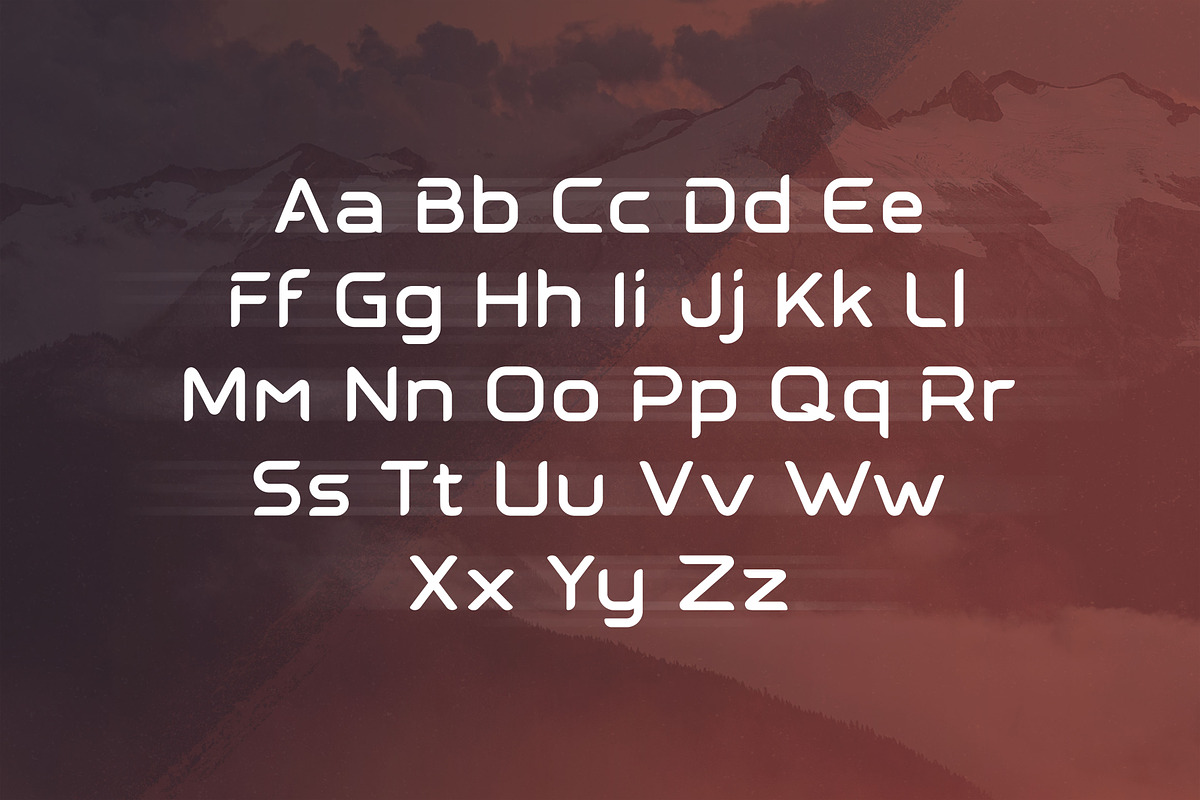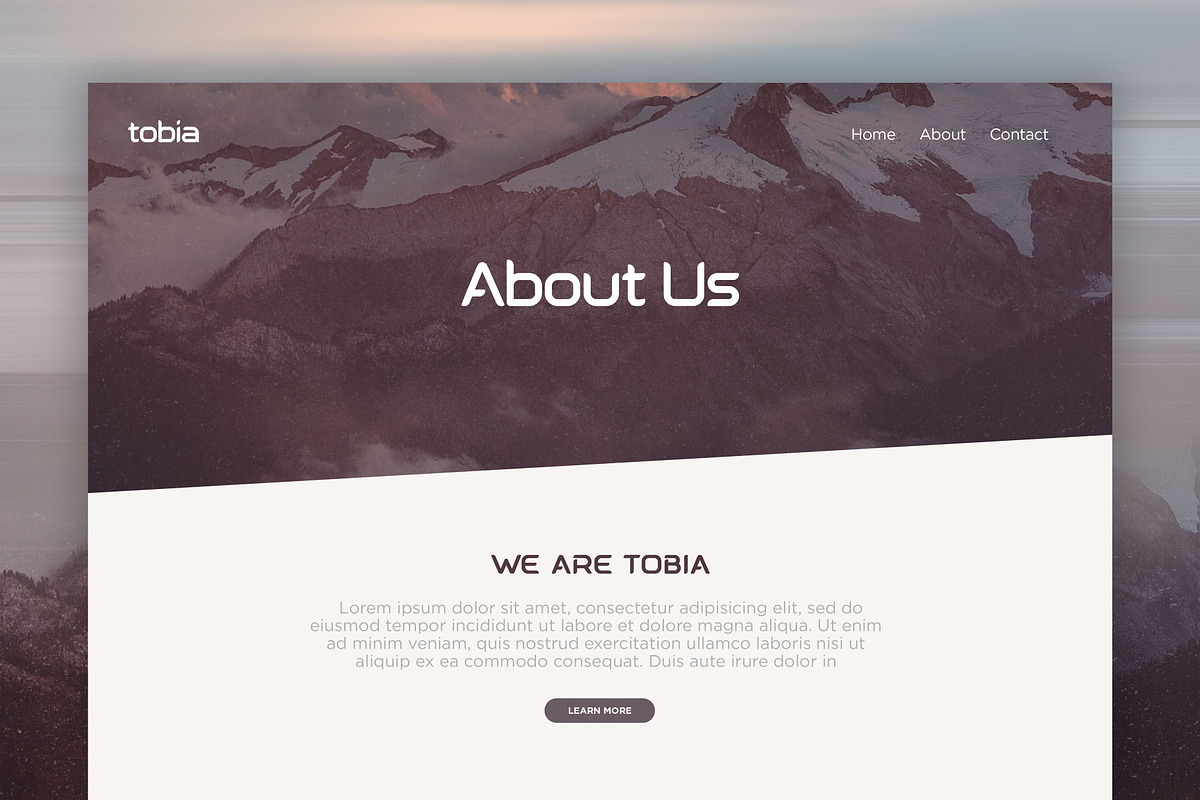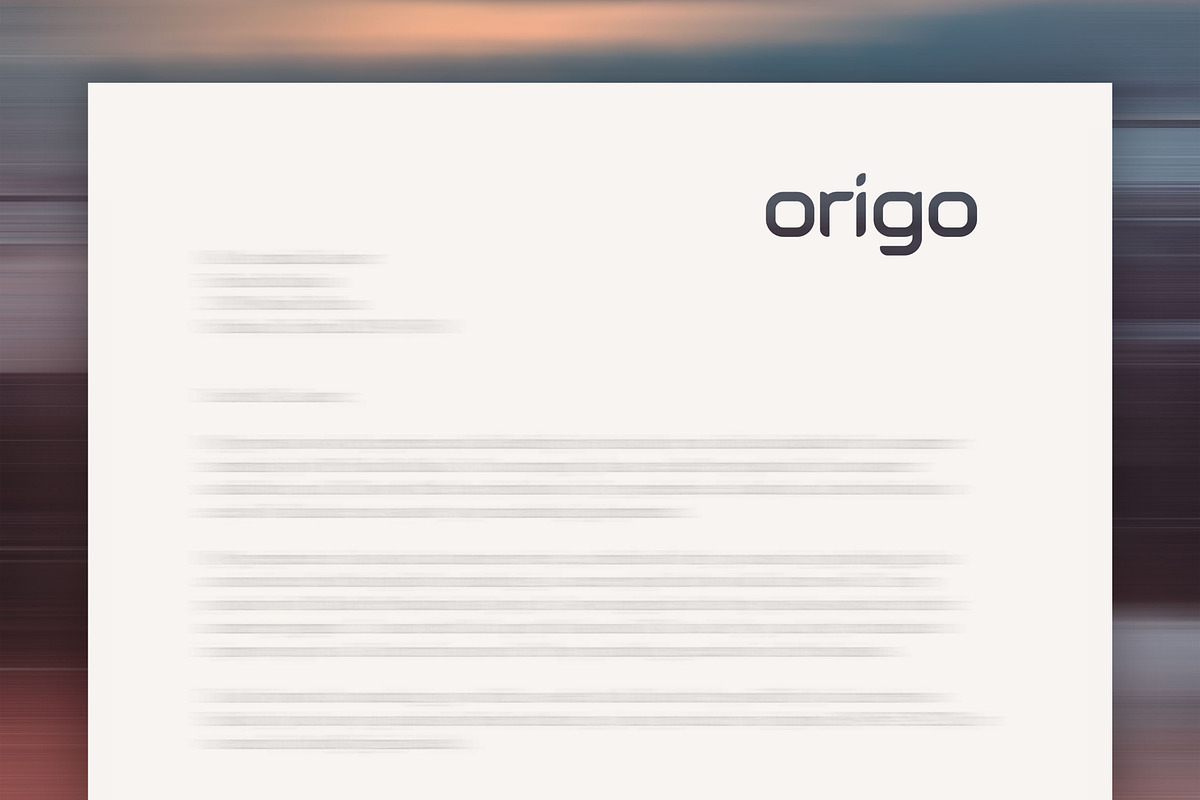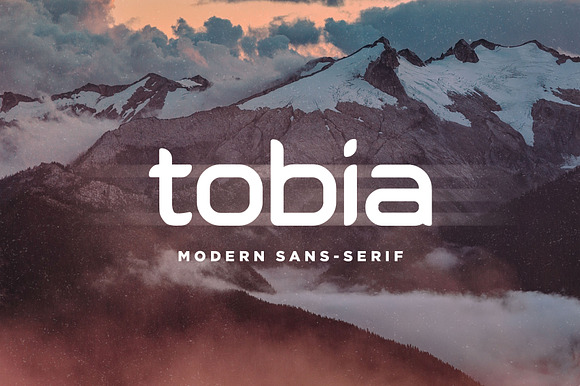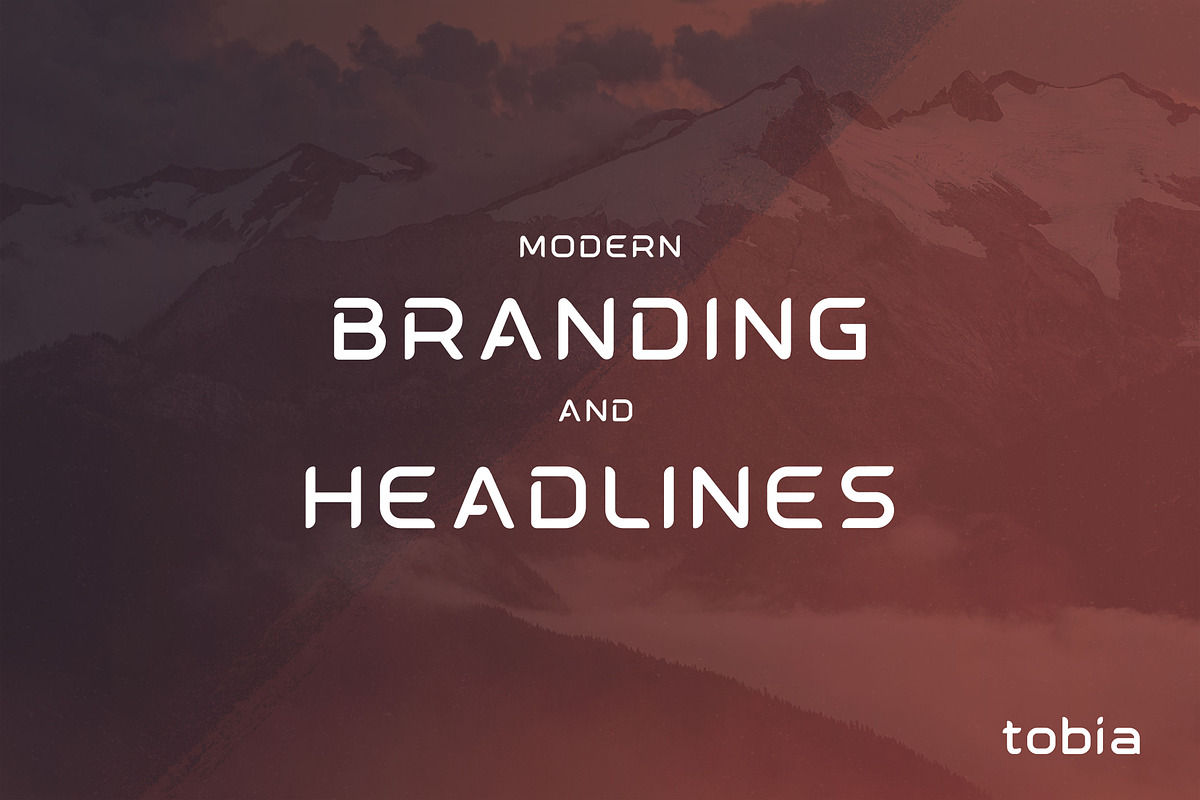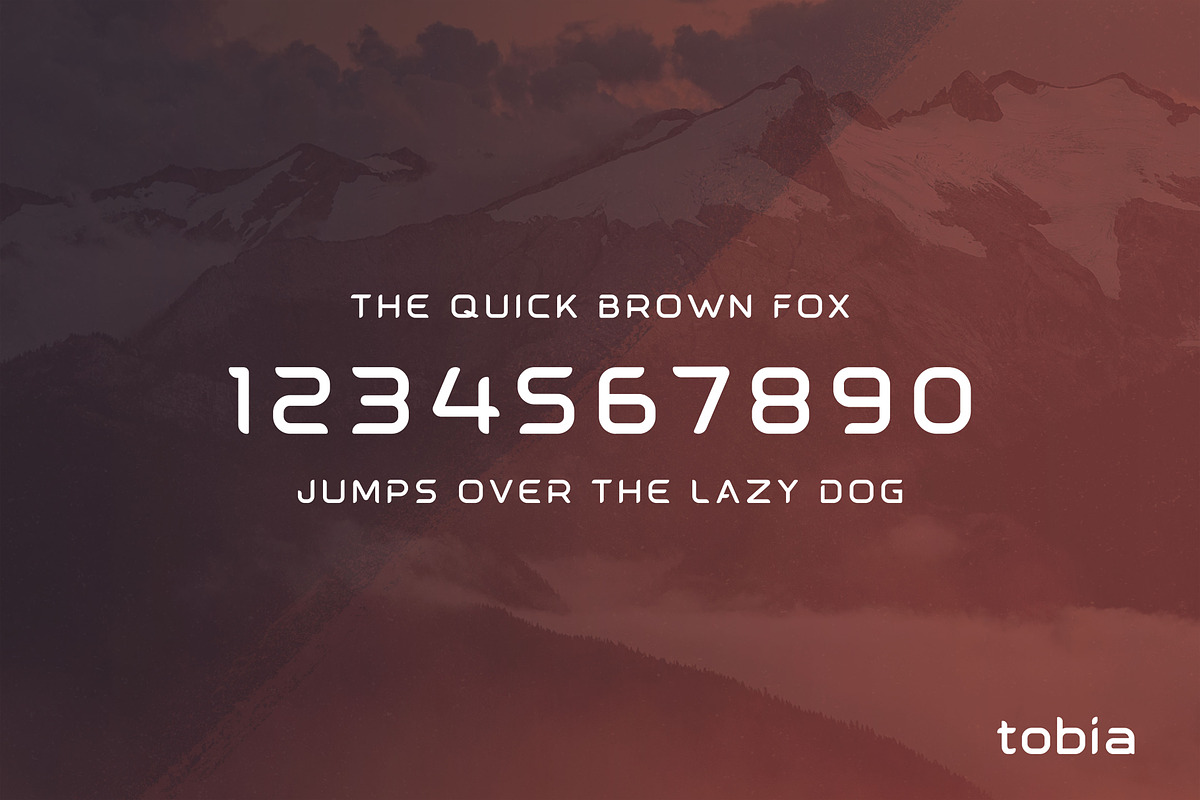
Tobia | Modern Sans-Serif Typeface
Tobia is a powerful, sans-serif typeface crafted to excel in many different environments. Built from the ground up with inspiration drawn from the custom typefaces used in modern tech start-ups, Tobia is comprised of simple geometric shapes, clean lines, and slightly rounded corners.
Full uppercase alphabet
Full lowercase alphabet
Limited set of special characters